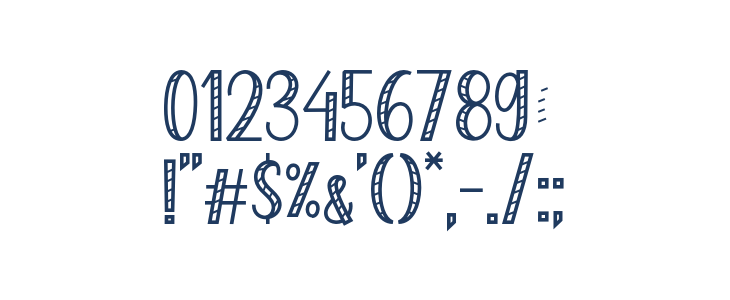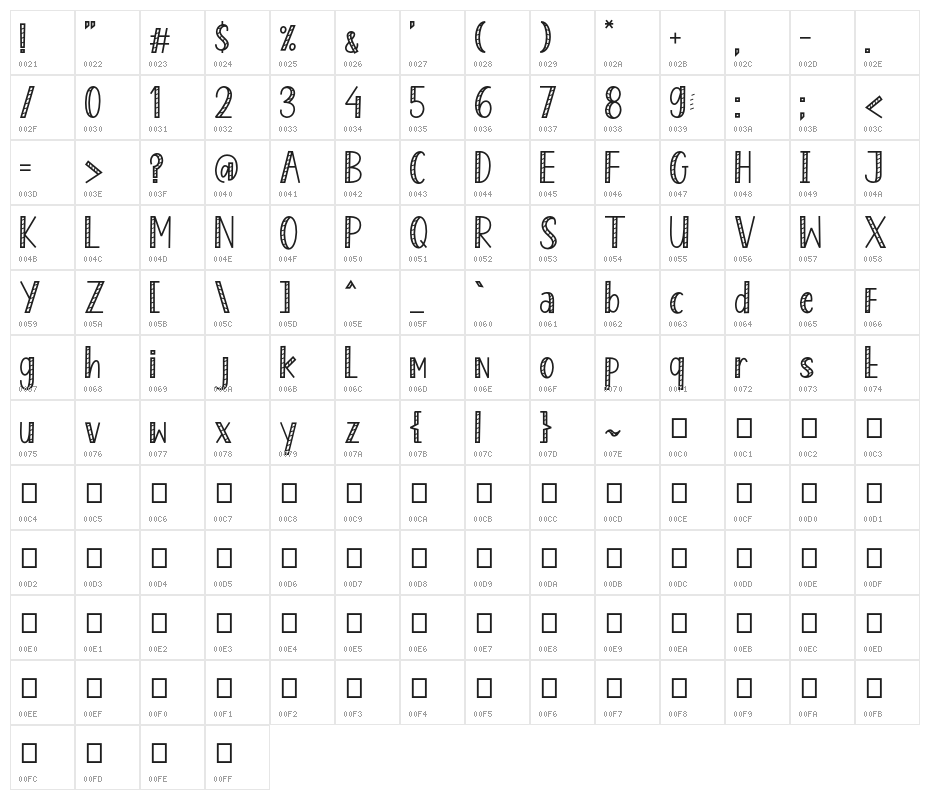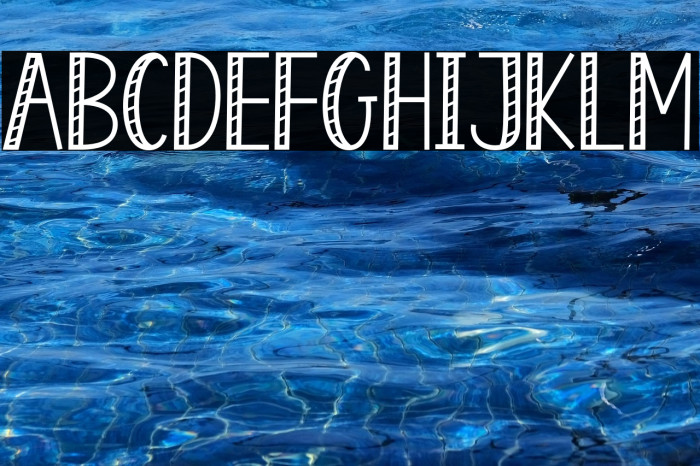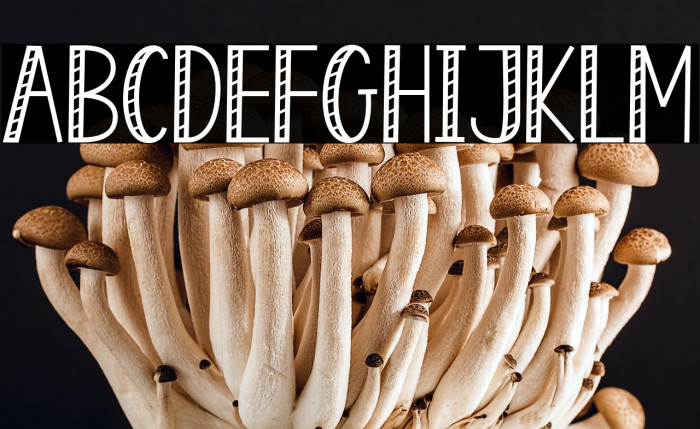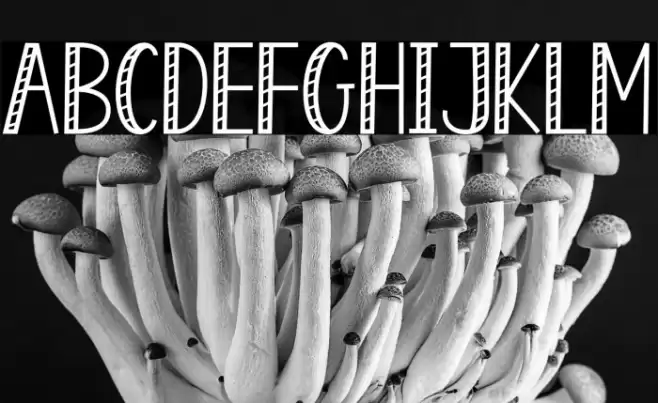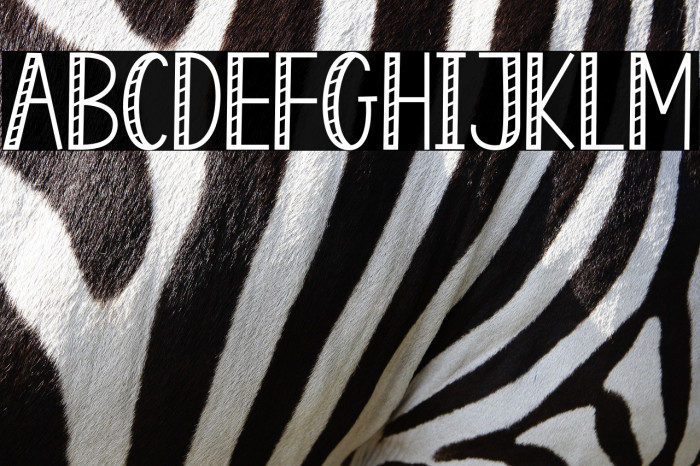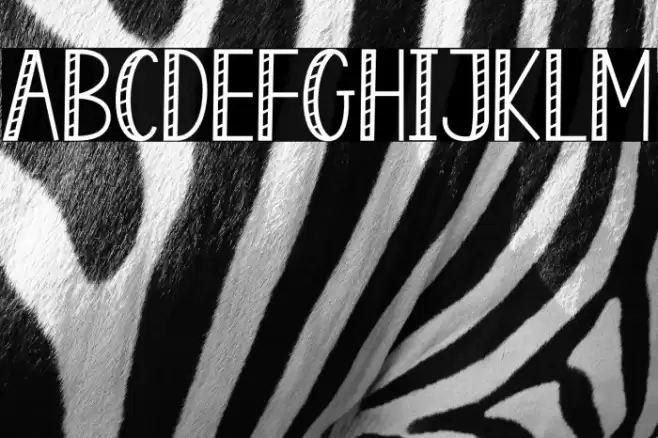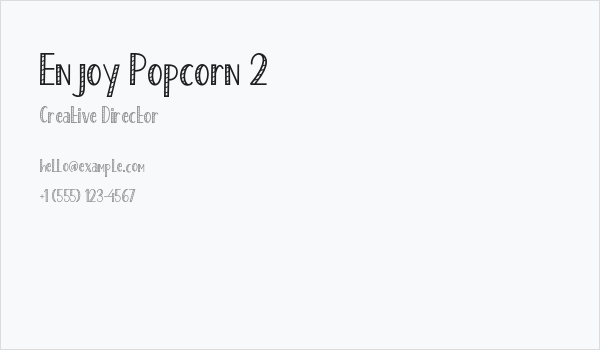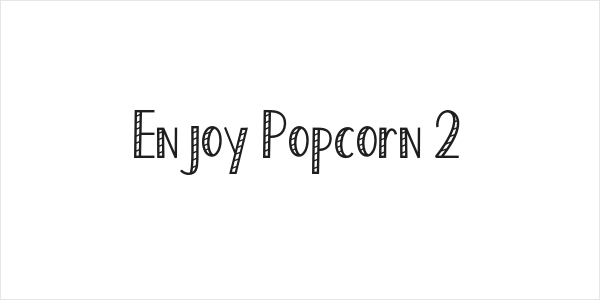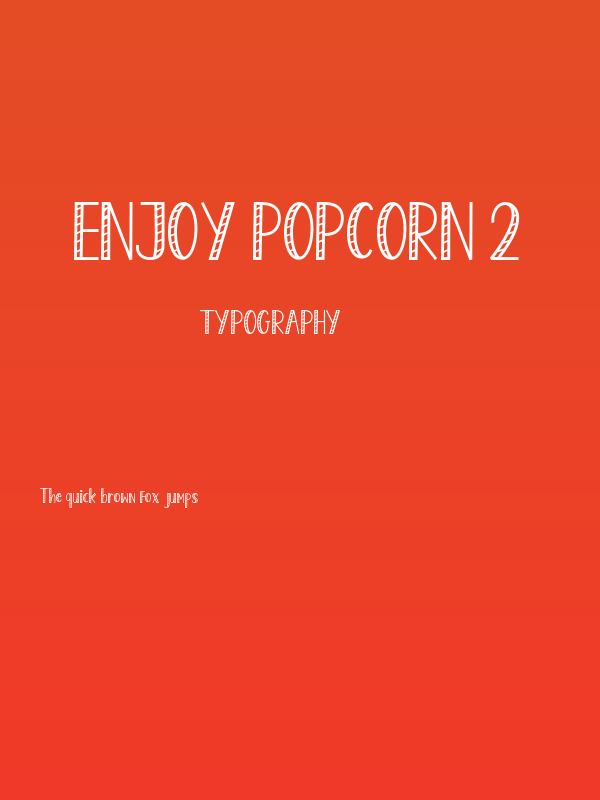
Enjoy Popcorn 2 Font
Enjoy Popcorn 2 Description
This playful and decorative font features a unique striped pattern within each character, reminiscent of a classic marquee or carnival style. The uppercase and lowercase letters are tall and narrow, with a consistent vertical alignment that adds to its whimsical charm. The numerals and special characters maintain the same striped design, ensuring a cohesive look across all text. This font's distinct style is both eye-catching and fun, making it ideal for projects that require a lively and engaging typeface.
| Proposed Projects | Ideal for posters, party invitations, children's book covers, and any design needing a fun, eye-catching typeface. |